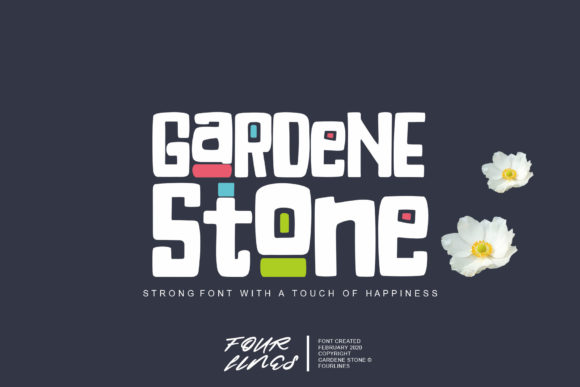
Introducing Gardene Stone, the display font that exudes boldness and charm, meticulously crafted to captivate your designs. This font is not just a visual treat; it's a versatile workhorse that effortlessly adapts to any context, whether it's adorning busy backgrounds or standing alone as a captivating headline.
Gardene Stone's casual allure lends it an approachable, down-to-earth vibe, making it universally appealing. Its refined curves and confident strokes create a visual harmony that draws the eye and invites engagement. Whether you're designing logos, branding materials, posters, or social media graphics, Gardene Stone will elevate your creations with its timeless elegance.
Unleash your creativity and let Gardene Stone transform your designs into masterpieces. Its versatility knows no bounds, making it the perfect choice for a wide range of projects. Elevate your branding with a logo that exudes strength and sophistication. Craft posters that command attention and leave a lasting impression. Create social media graphics that pop off the screen and engage your audience. The possibilities are endless with Gardene Stone.
But what truly sets Gardene Stone apart is its ability to connect with your audience on an emotional level. Its friendly, approachable nature invites viewers to engage with your content, creating a deeper connection with your brand. Whether you're promoting a product, service, or simply sharing a message, Gardene Stone amplifies your words and captivates your audience, leaving a lasting impact.
So why settle for ordinary fonts when you can immerse yourself in the extraordinary? Embrace Gardene Stone today and watch your designs flourish. Its versatility, charm, and emotional appeal will transform your creative vision into a captivating reality. Experience the Gardene Stone difference and unlock a world of design possibilities.